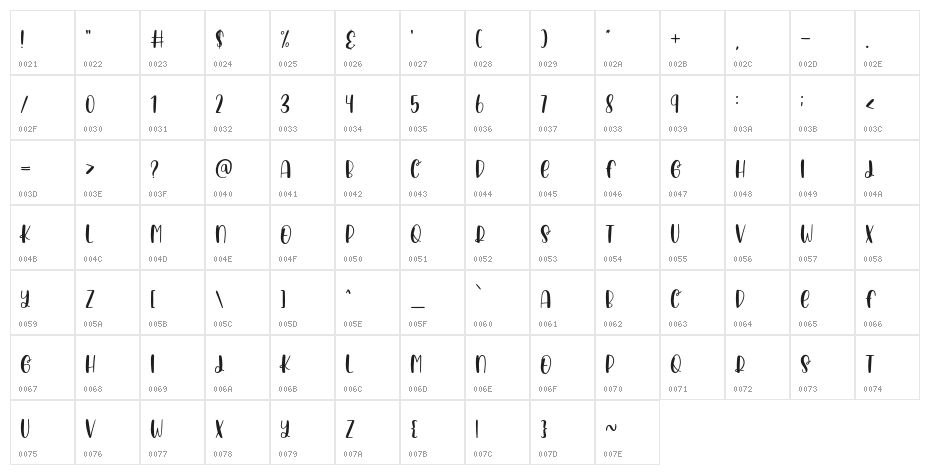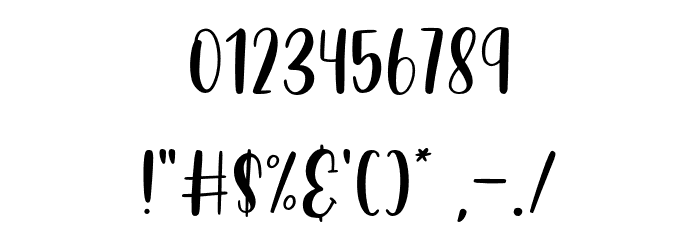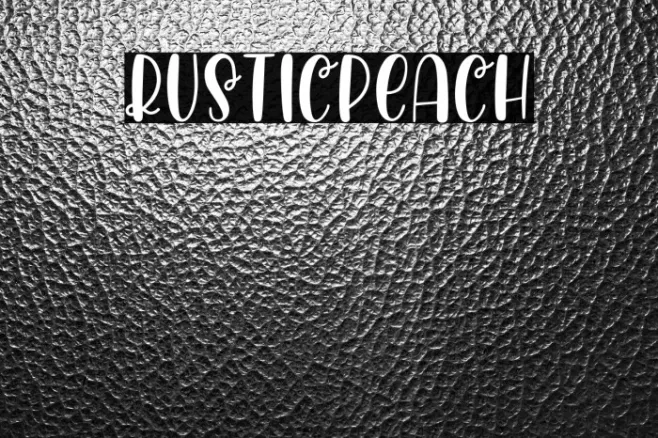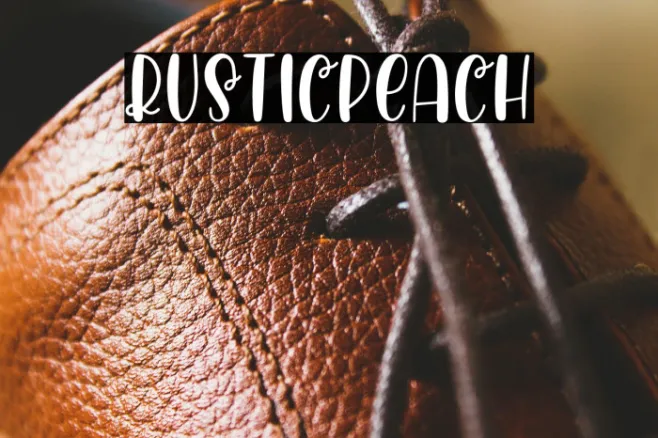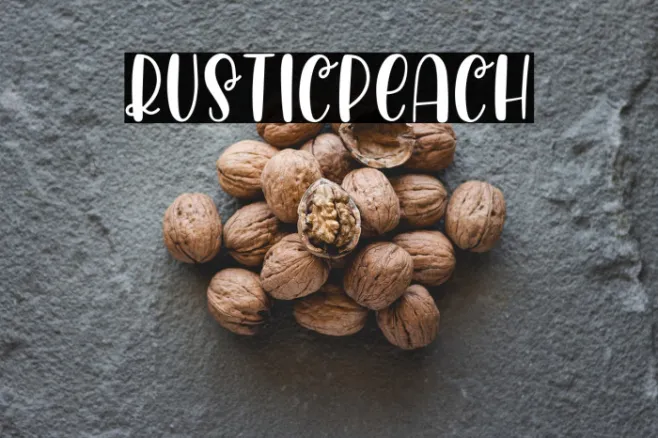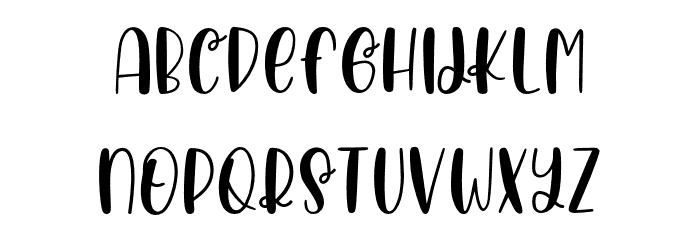
RusticPeach Font
RusticPeach Description
This font exudes a playful and whimsical charm with its handwritten style. The characters are bold and feature a unique blend of curves and straight lines, giving it a distinctive personality. The uppercase letters are slightly taller than the lowercase, maintaining a consistent flow throughout. The numbers and special characters complement the overall design, adding to its versatility. This font is perfect for projects that require a touch of creativity and fun, such as invitations, greeting cards, and playful branding.
| Proposed Projects | Ideal for invitations, greeting cards, playful branding, and creative projects. |